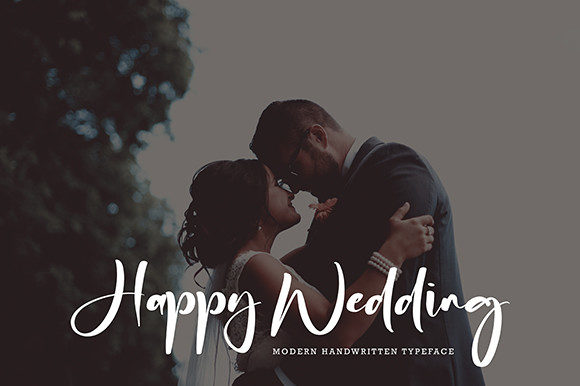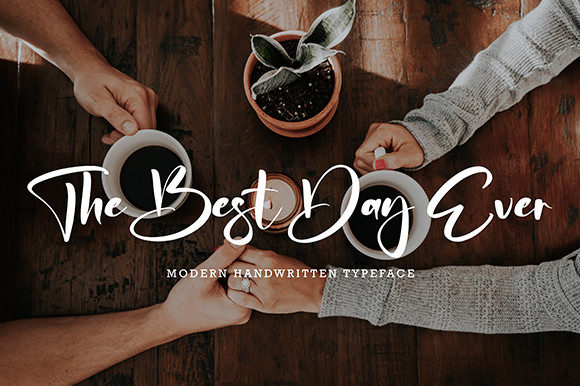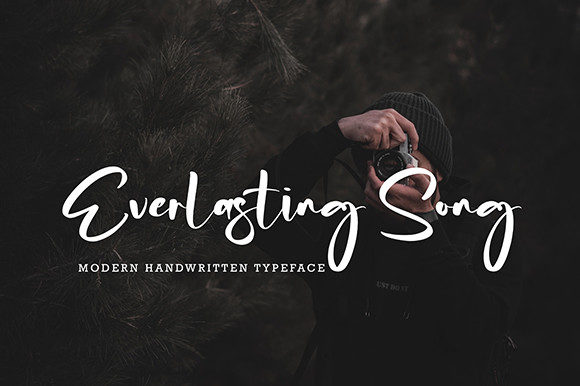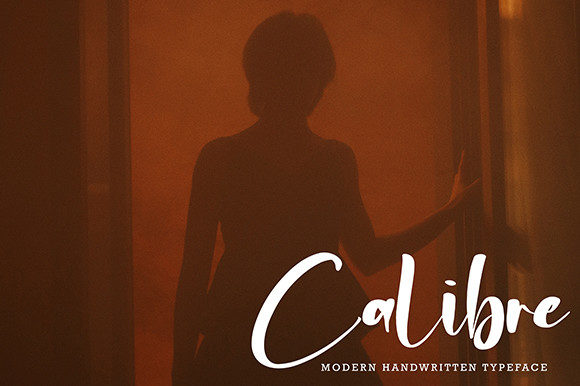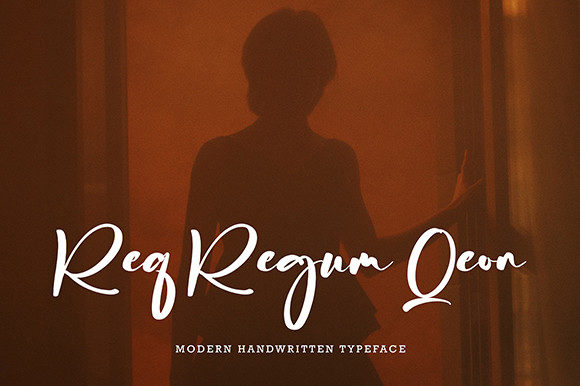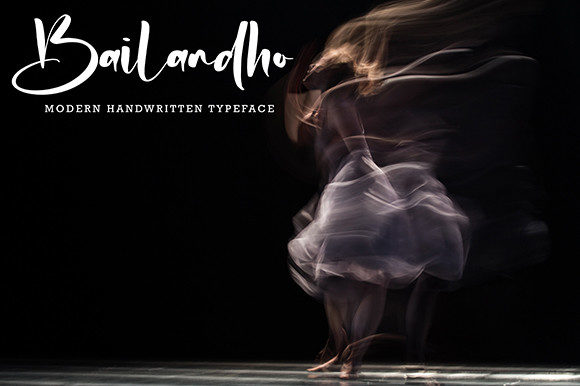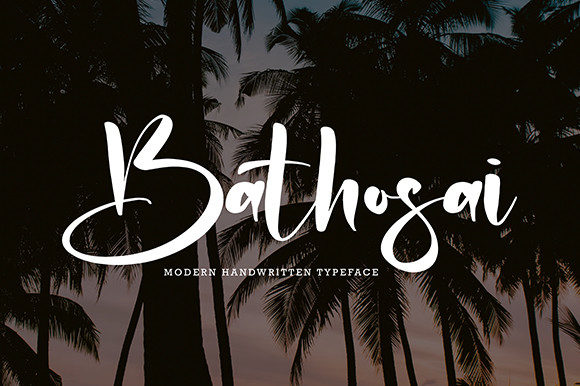
Bathosai Font: Elevate Your Designs with Elegance and Sophistication
In the world of typography, a good font can make all the difference in creating visually stunning designs. For designers and crafters looking to add a touch of elegance and sophistication to their projects, the Bathosai Font is an excellent choice. This gorgeous and fashionable script font is designed to impress, and its unique features make it an ideal addition to any design arsenal.
What is Bathosai Font?
Bathosai is a beautifully crafted script font that exudes luxury and refinement. Its flowing lines and intricate details make it perfect for a wide range of design applications, from branding and packaging to wedding invitations and digital marketing materials. Whether you’re looking to create a cohesive visual identity or simply want to add a touch of elegance to your designs, Bathosai is an excellent choice.
One of the standout features of the Bathosai Font is its PUA (Private Use Area) encoding. This means that users can access all of the glyphs and swashes with ease, giving them complete creative control over their designs. With PUA encoding, you can effortlessly navigate the font’s extensive character set, including ligatures, alternates, and ornaments, to create truly unique and eye-catching designs.
Key Features of Bathosai Font
- Gorgeous and fashionable script font: Bathosai is designed to add a touch of elegance and sophistication to any design.
- PUA encoded: Easy access to all glyphs and swashes for effortless design customization.
- Extensive character set: Includes ligatures, alternates, and ornaments to give you complete creative control.
- Perfect for a wide range of design applications: From branding and packaging to wedding invitations and digital marketing materials.
Why Choose Bathosai Font?
With so many fonts available, why choose Bathosai? Here are just a few reasons why designers and crafters are falling in love with this gorgeous script font:
- Unique and eye-catching designs: Bathosai’s intricate details and flowing lines make it perfect for creating visually stunning designs that stand out from the crowd.
- Easy to use: With PUA encoding, accessing glyphs and swashes is a breeze, making it easy to get started with your designs.
- Versatile: Bathosai is suitable for a wide range of design applications, making it an excellent addition to any design arsenal.
- Elegant and sophisticated: This font is designed to add a touch of luxury and refinement to any design, making it perfect for high-end branding and marketing materials.
Tips for Using Bathosai Font
To get the most out of the Bathosai Font, here are a few tips to keep in mind:
- Experiment with different sizes and colors: Bathosai looks stunning in a variety of sizes and colors, so don’t be afraid to get creative and try out different combinations.
- Pair with complementary fonts: Bathosai pairs beautifully with a range of fonts, so try pairing it with complementary fonts to create visually interesting designs.
- Use glyphs and swashes to add detail: With PUA encoding, you can easily access glyphs and swashes to add intricate details to your designs.
In conclusion, the Bathosai Font is a gorgeous and fashionable script font that is sure to elevate your designs to the next level. With its PUA encoding, extensive character set, and elegant design, it’s perfect for designers and crafters looking to add a touch of sophistication and luxury to their projects. Whether you’re creating branding materials, wedding invitations, or digital marketing materials, Bathosai is an excellent choice. So why wait? Download Bathosai Font today and start creating stunning designs that impress!